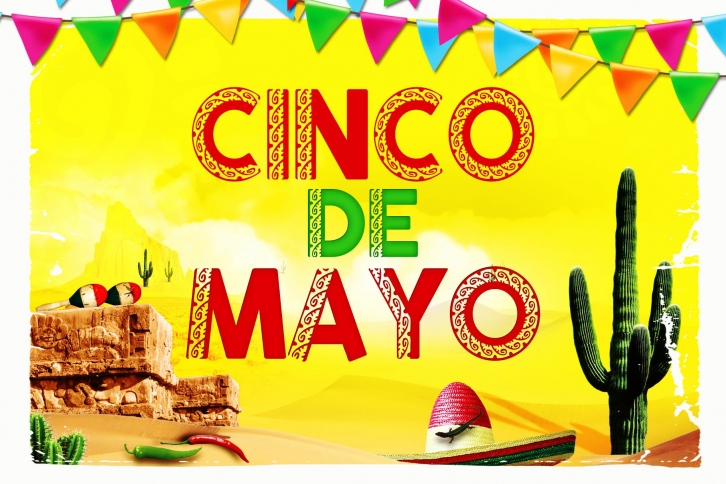
Cinco De Mayo Mexican is a great font that was designed by Artolus. Imagine the amount of combinations you can create using this font! The archive is 5.73 MB and it was released on April 22, 2021. Cinco De Mayo Mexican looks beautiful on wedding invitations, greeting cards, logos, posters, labels, t-shirt designs, logos, business cards and is perfect for use in ink or watercolor works, fashion, magazines, packaging and food menus, children's books and more!